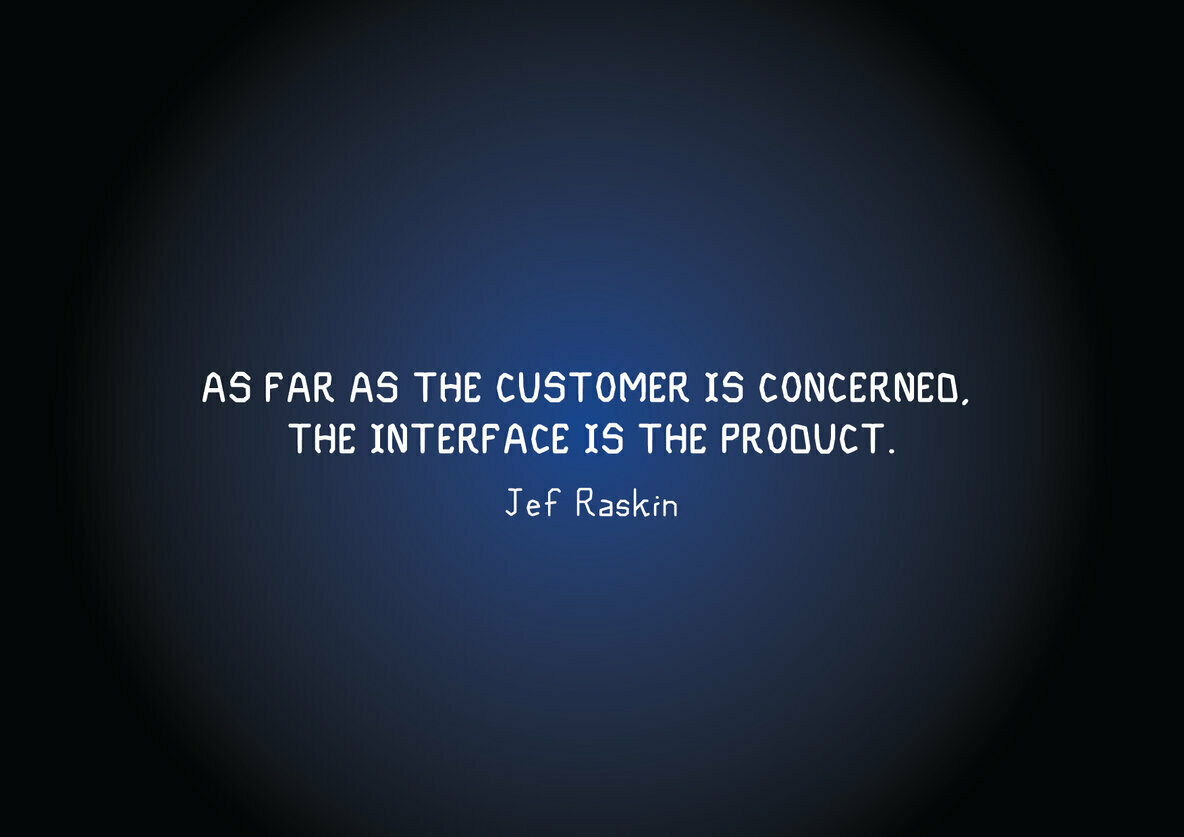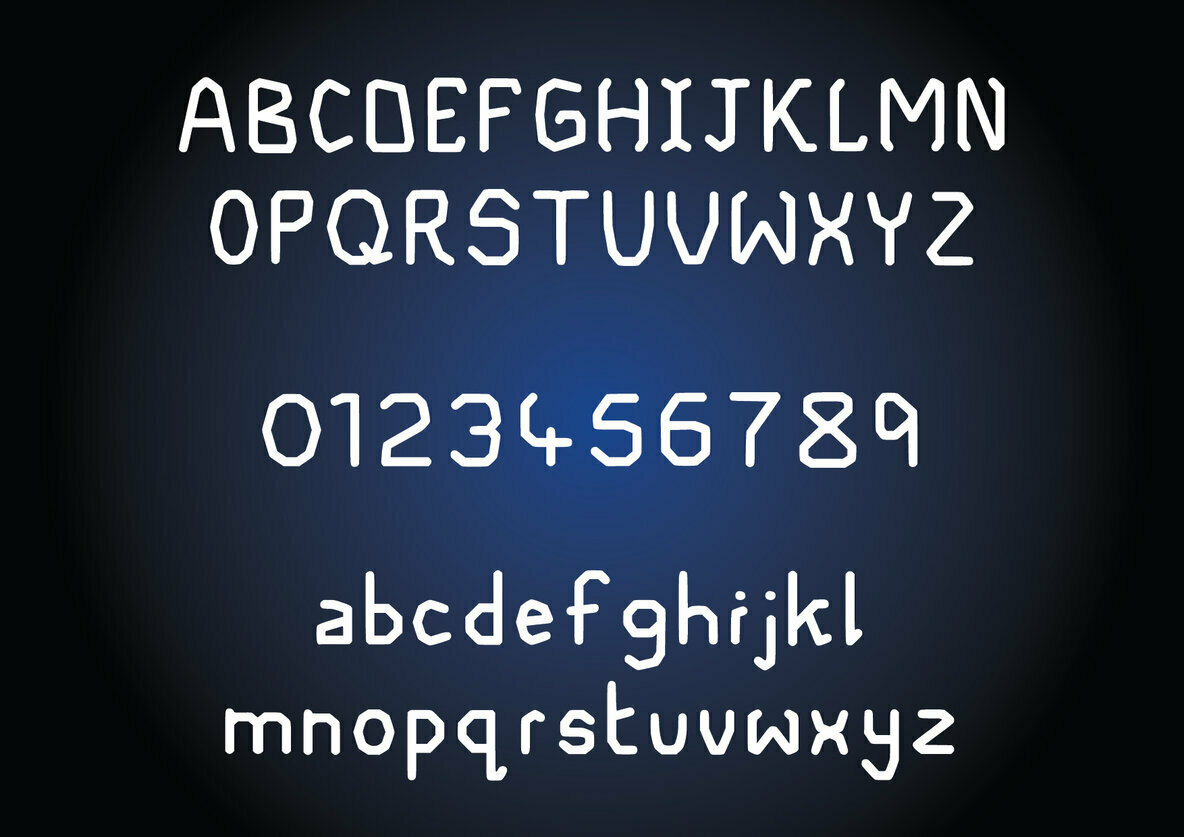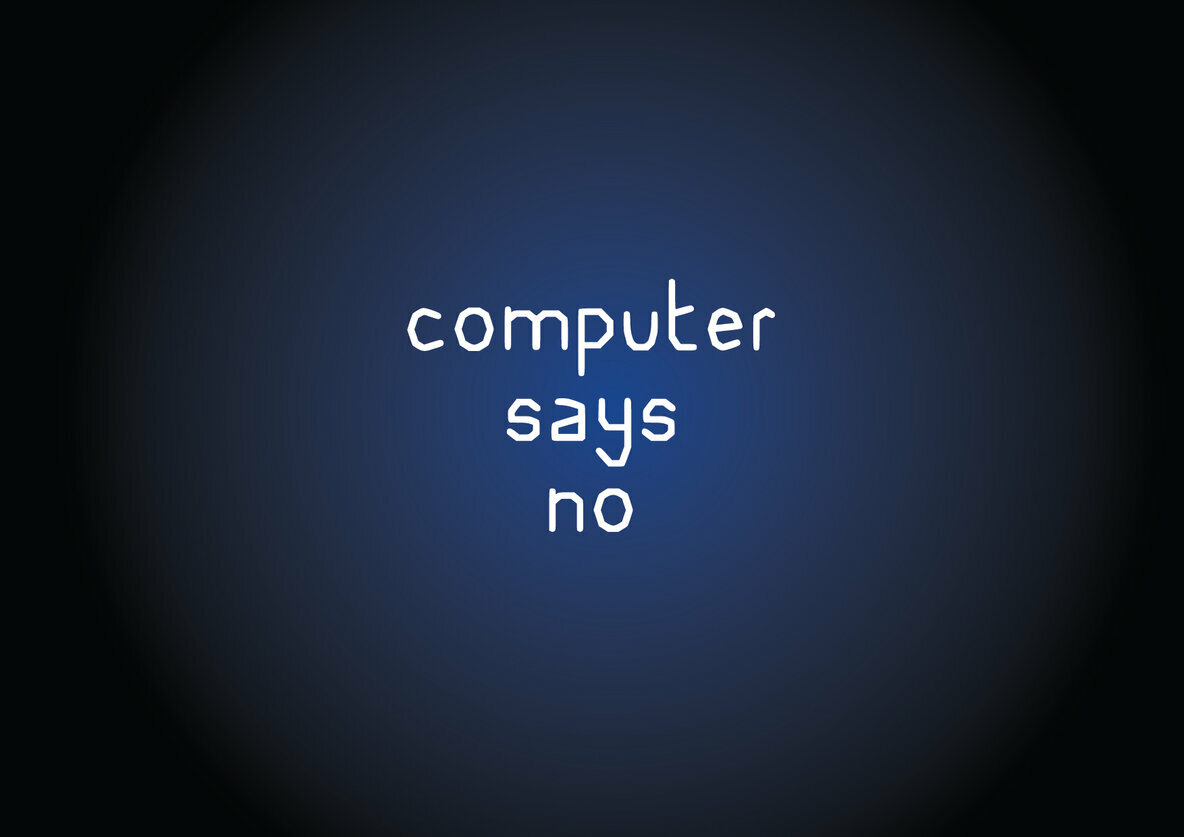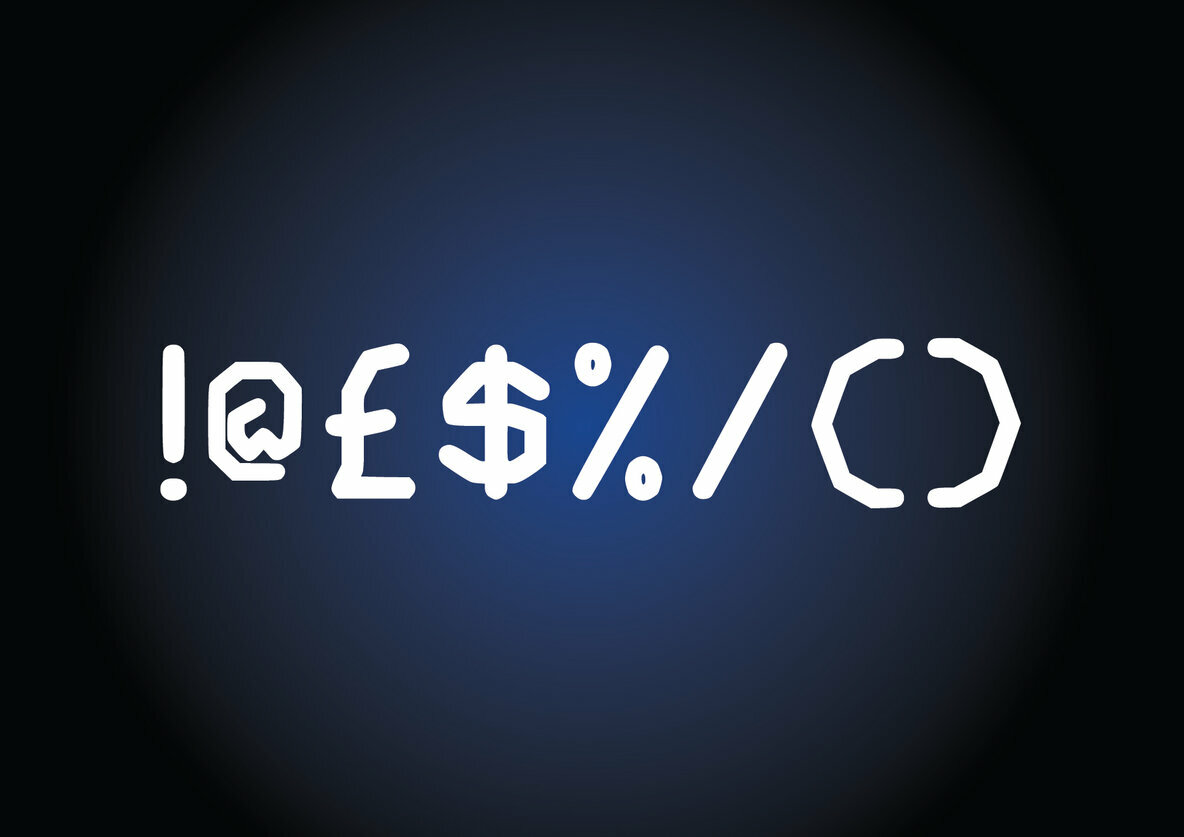
Tech World Font
Step into the future with Tech World, a captivating serif font that brings a sci-fi essence to any design project. Perfect for infusing a sense of innovation and forward-thinking into your work, this font stands out with its sleek lines and modern aesthetic.Tech World: A Futuristic Serif Addition